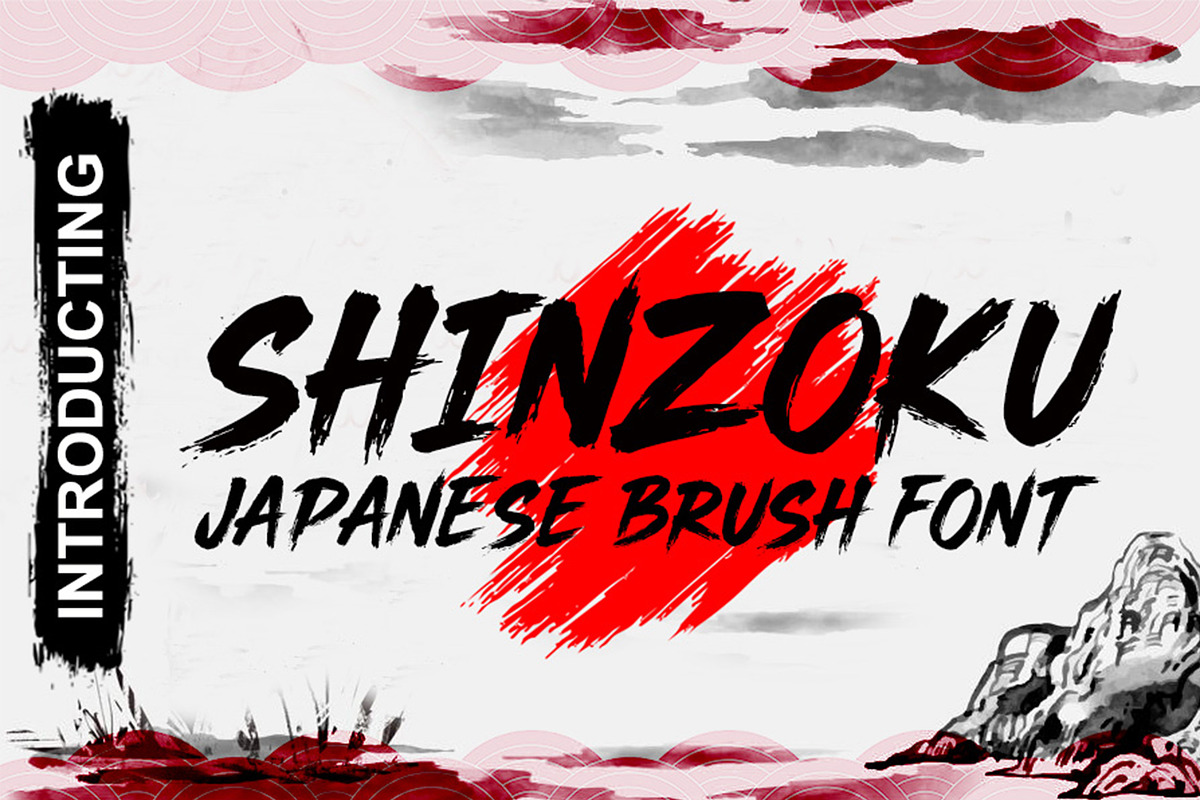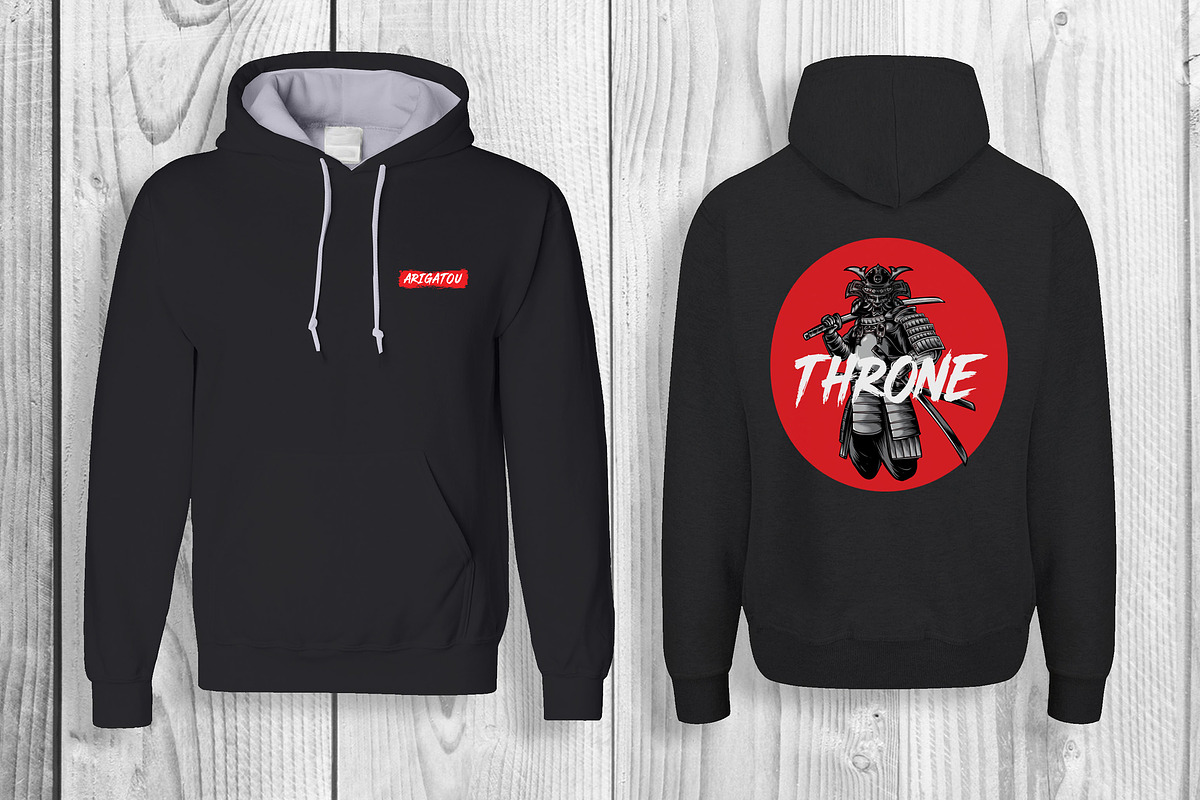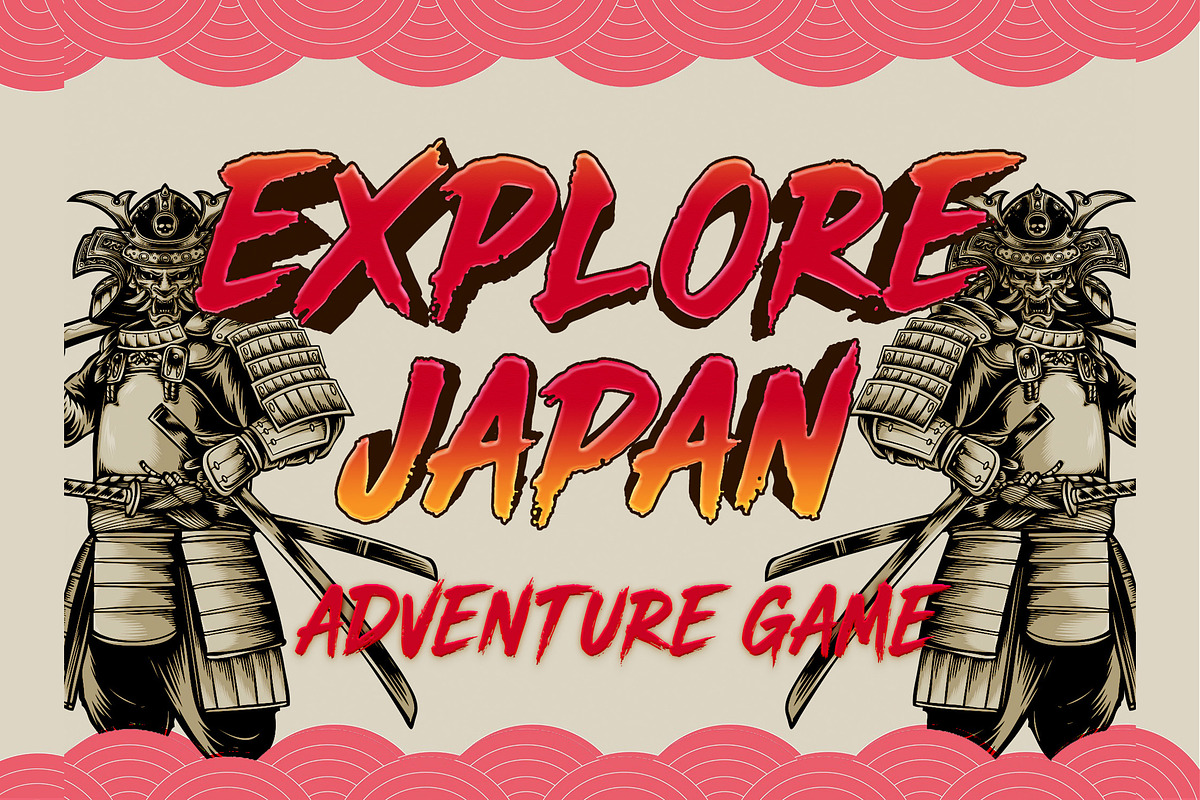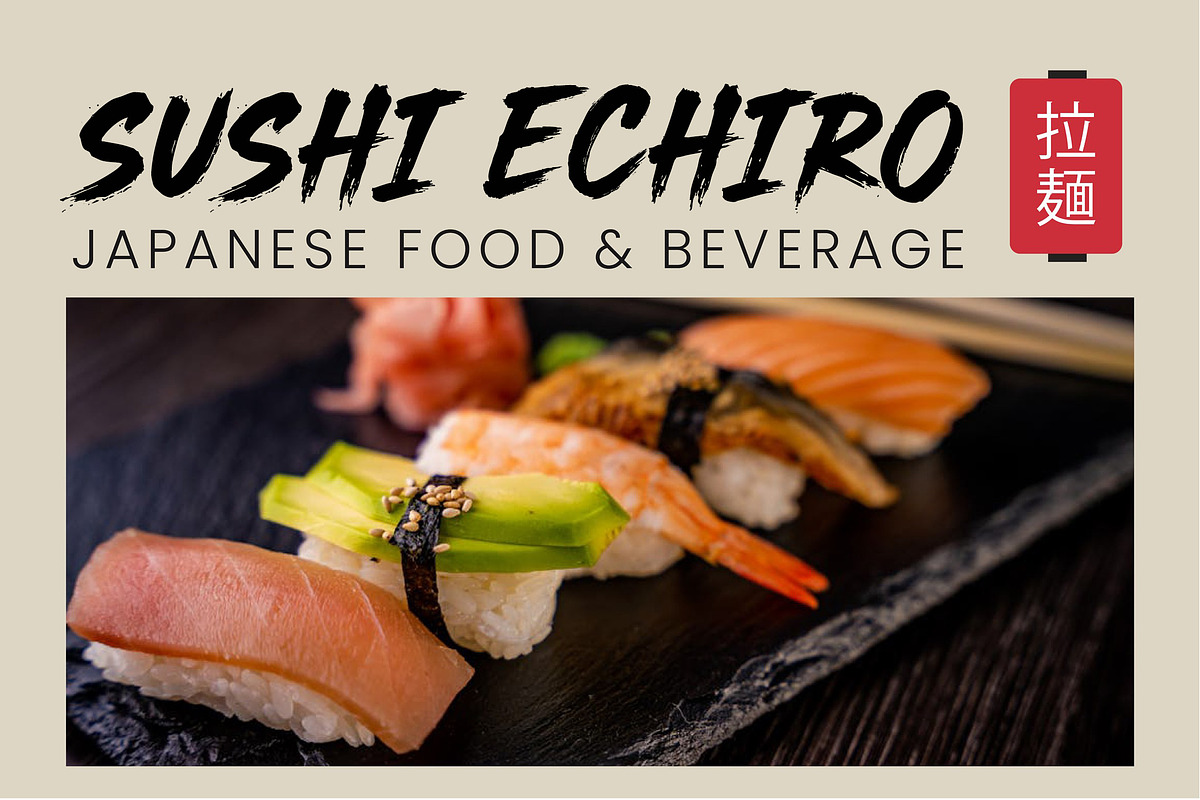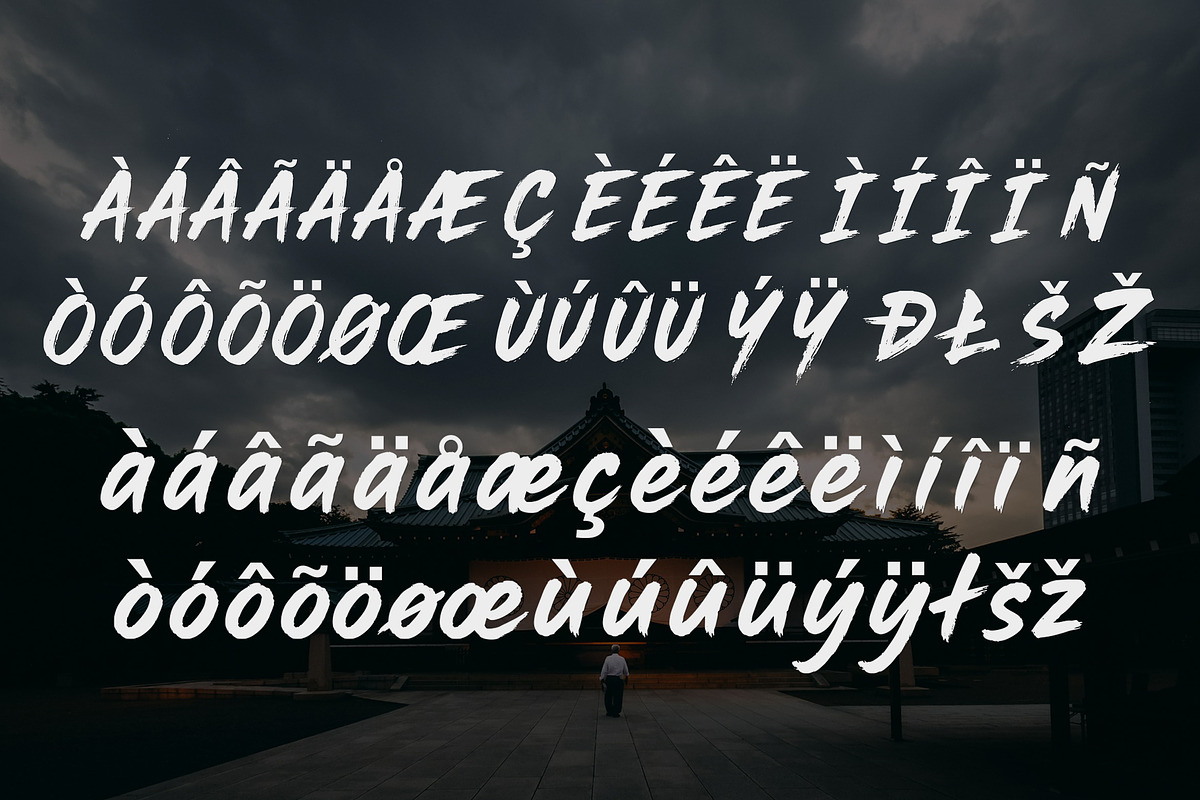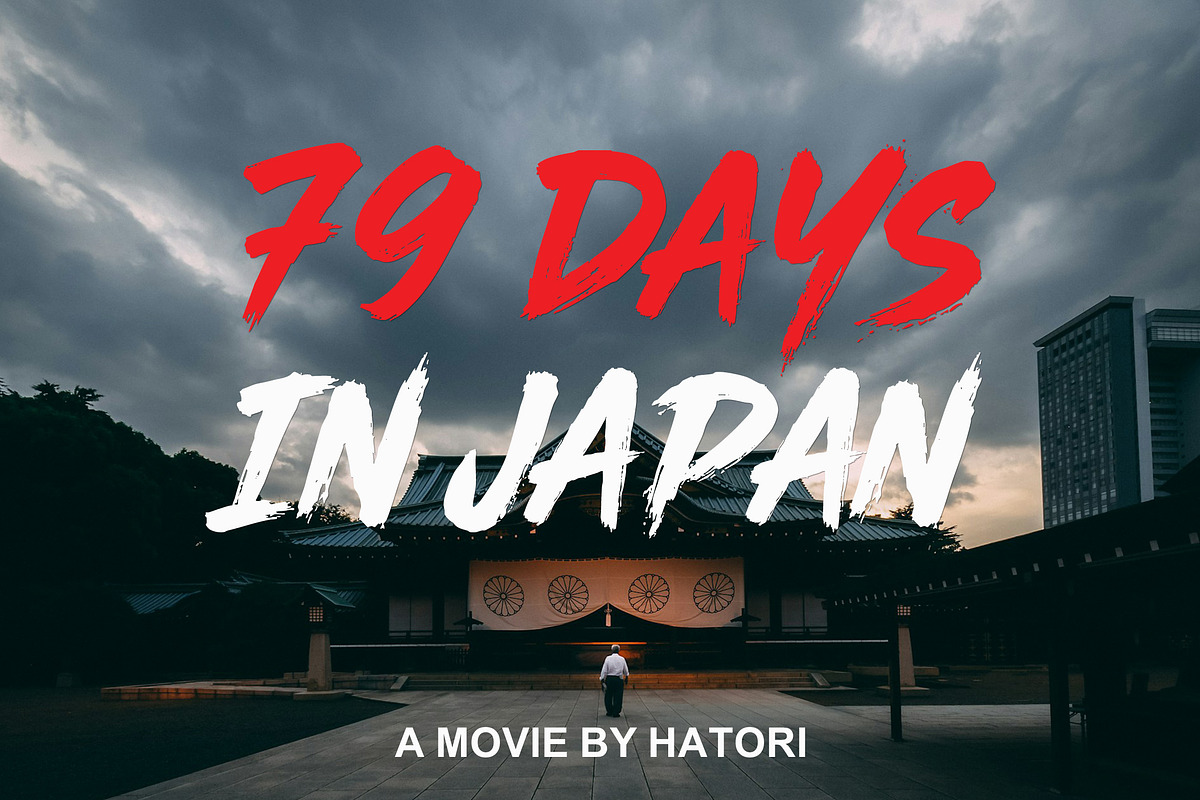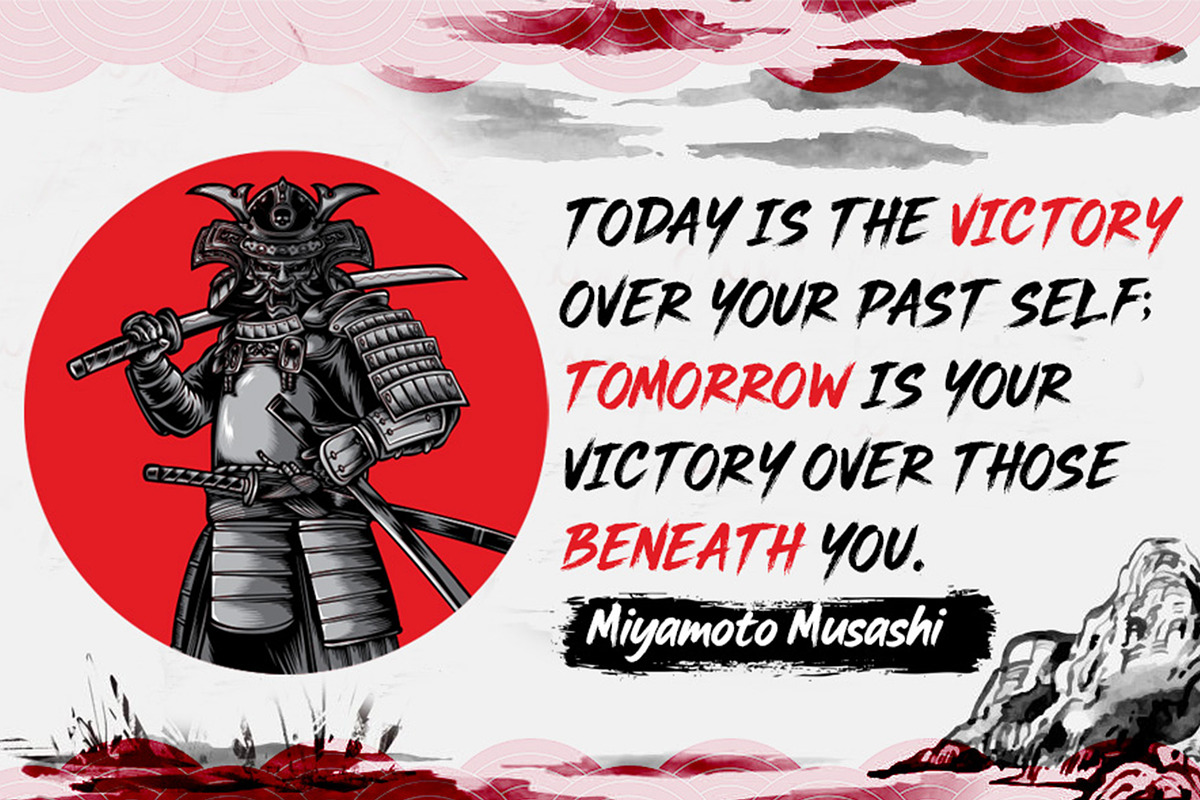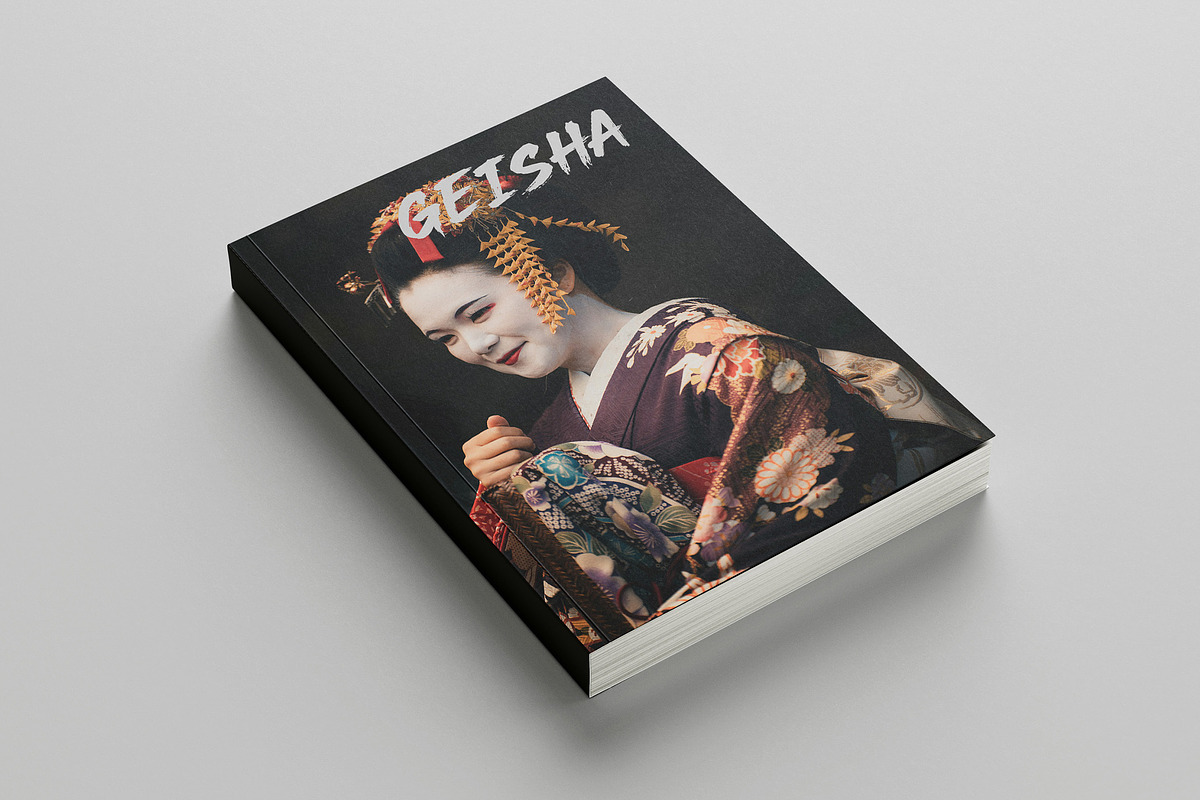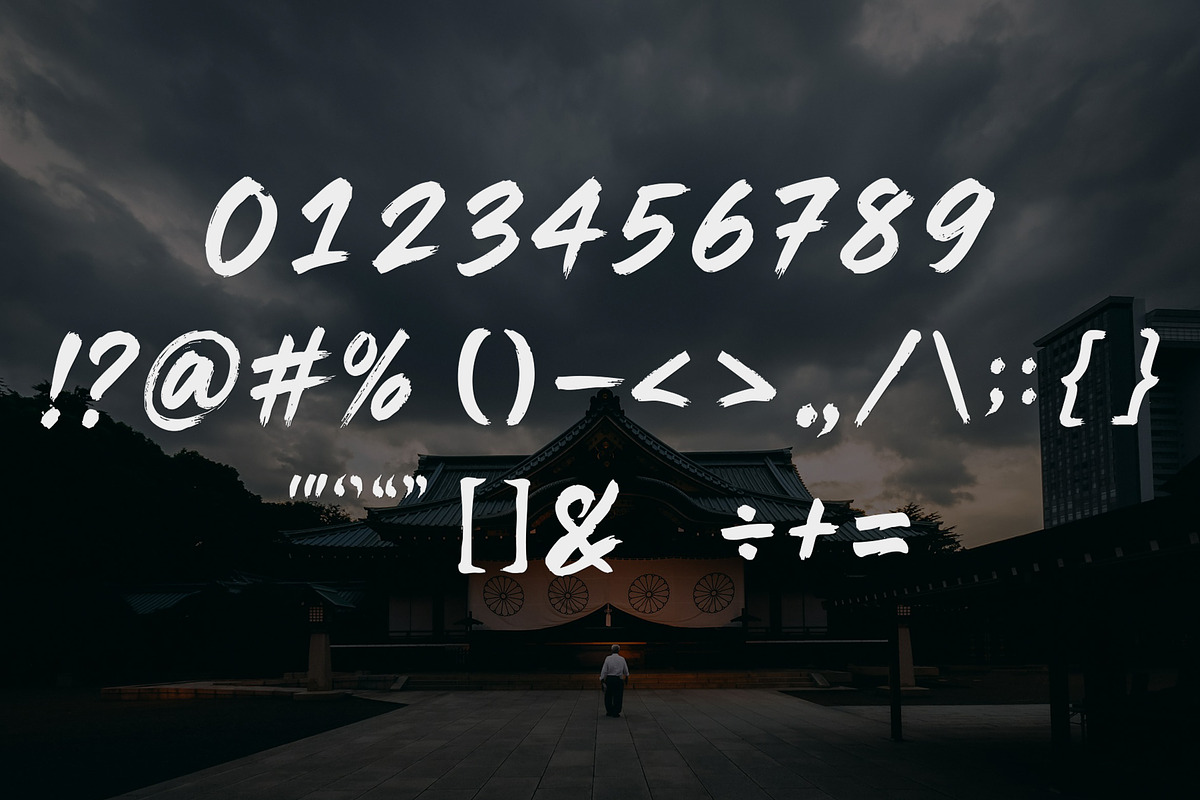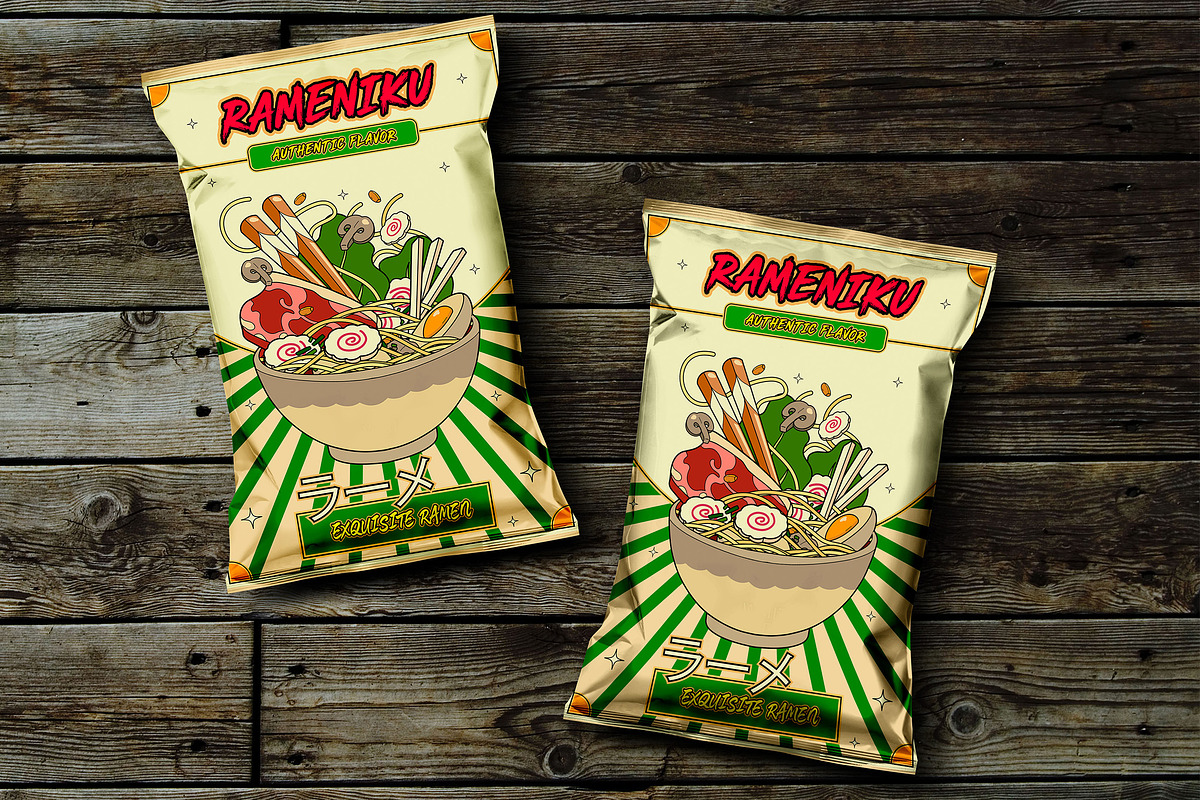
Shinzoku Japanese Brush Font
Unleash bold expression with Shinzoku Brush — a high-impact graffiti-meets-kanji typeface inspired by Japanese calligraphy and urban street art. Perfect for posters, logos, music visuals, this brush font blends edgy strokes with energetic motion. Bring raw power and cultural fusion to your creative projects.
- 223 Glyps included Uppercase, Lowercase, Numeral, Punctuation, Multilingual international Language.